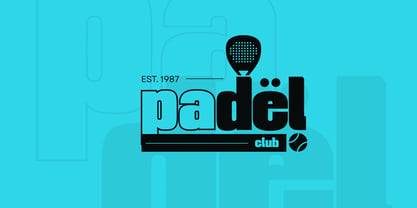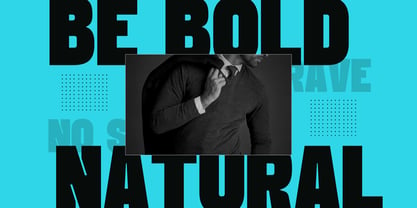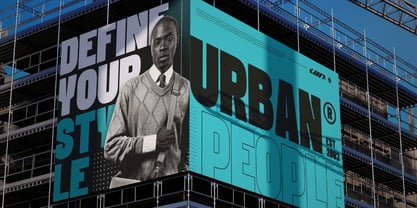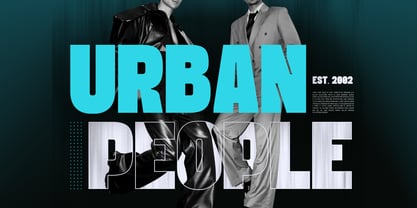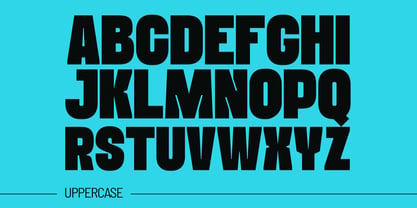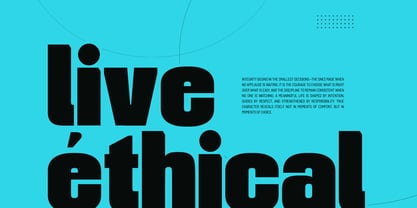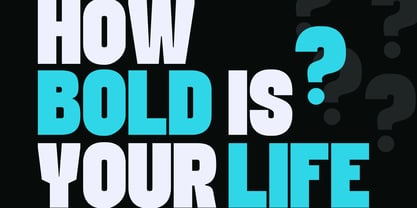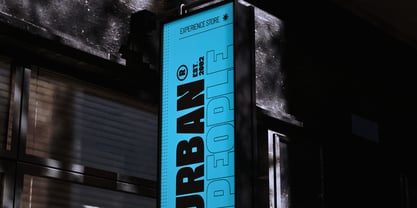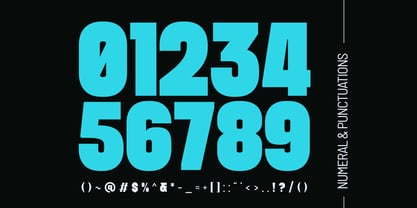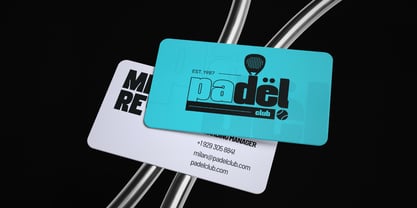
Morxin Modern
by Nirmana Visual
The Morxin Modern Font Family was designed by Sigit Dwipa and published by Nirmana Visual. Morxin Modern contains 2 styles and family package options. More about this family
Morxin Modern is a powerhouse display sans serif designed to dominate the visual landscape of modern branding. Featuring a striking extrude effect, this font adds immediate architectural depth and an urban edge to any project, from high-impact logos to gritty street-style posters. Its clean, geometric foundations ensure readability while the 3D perspective injects a sense of kinetic energy and forward-thinking style. Whether you are crafting a bold advertising campaign or a cutting-edge corporate identity, Morxin Modern delivers a rugged, industrial sophistication that demands attention and defines the contemporary aesthetic.
Designers: Sigit Dwipa
Foundry: Nirmana Visual